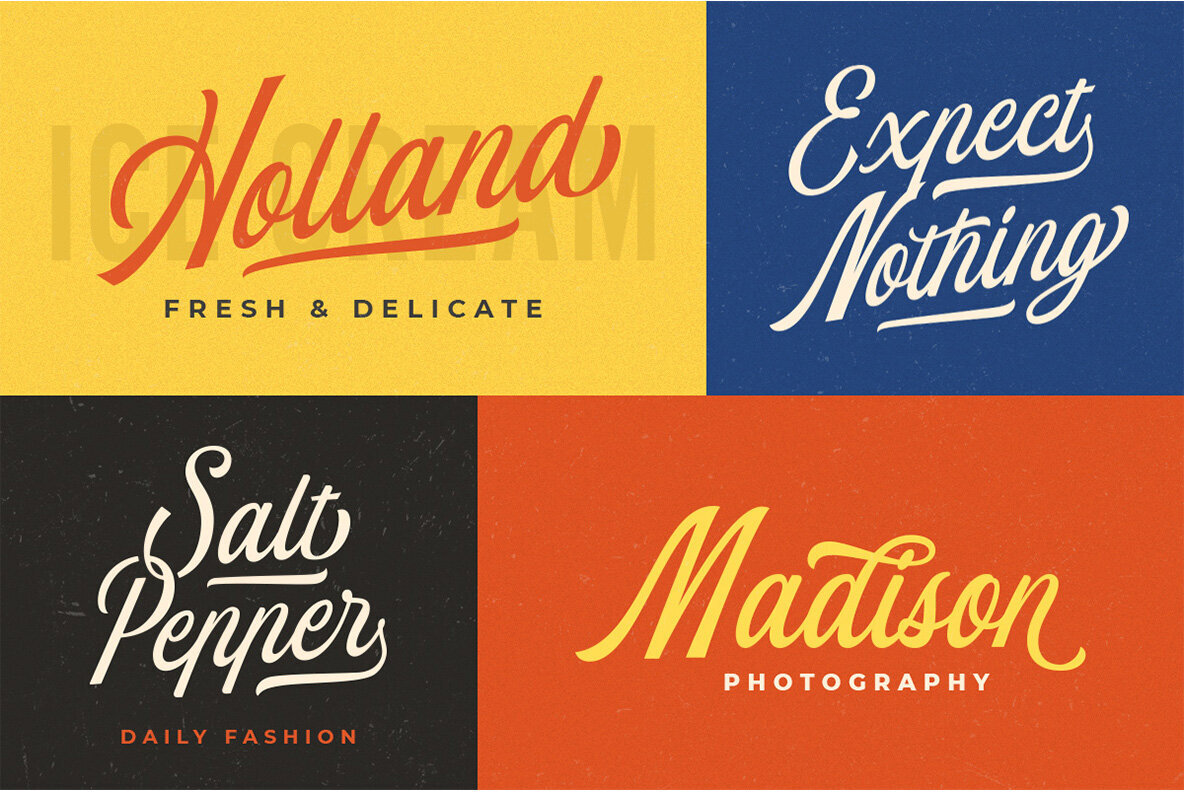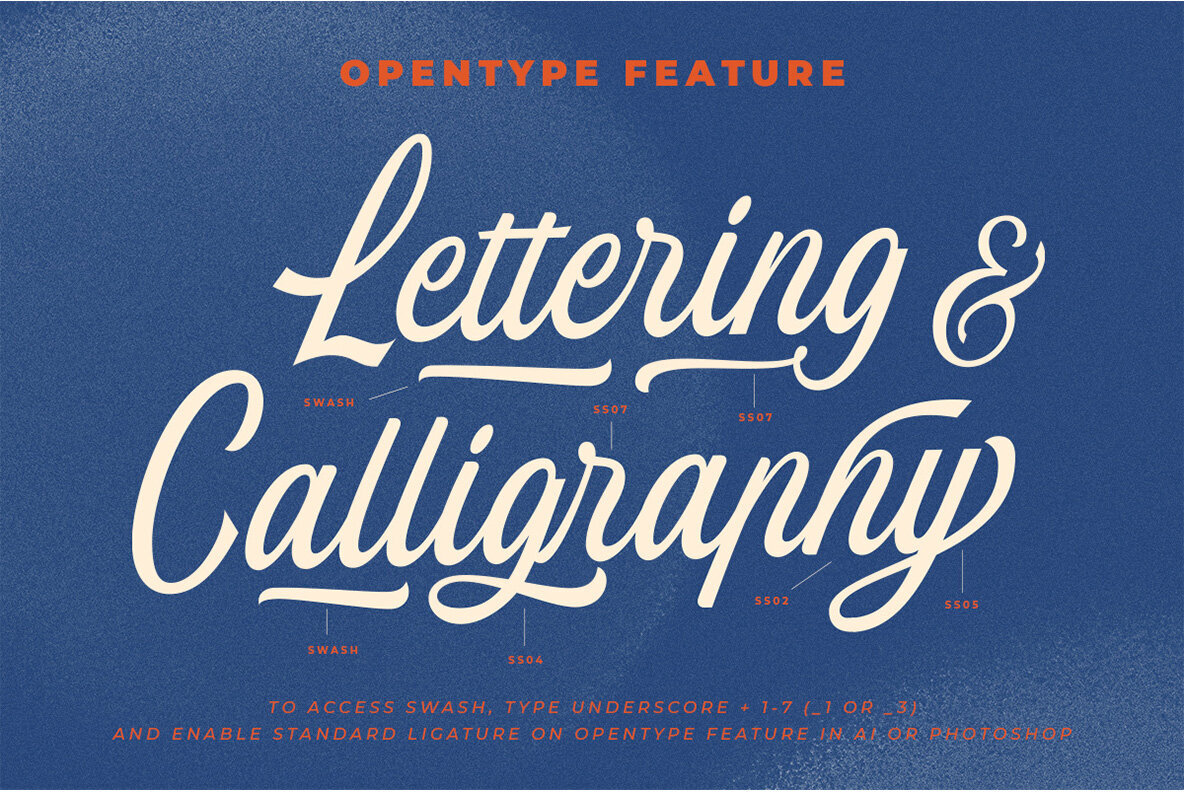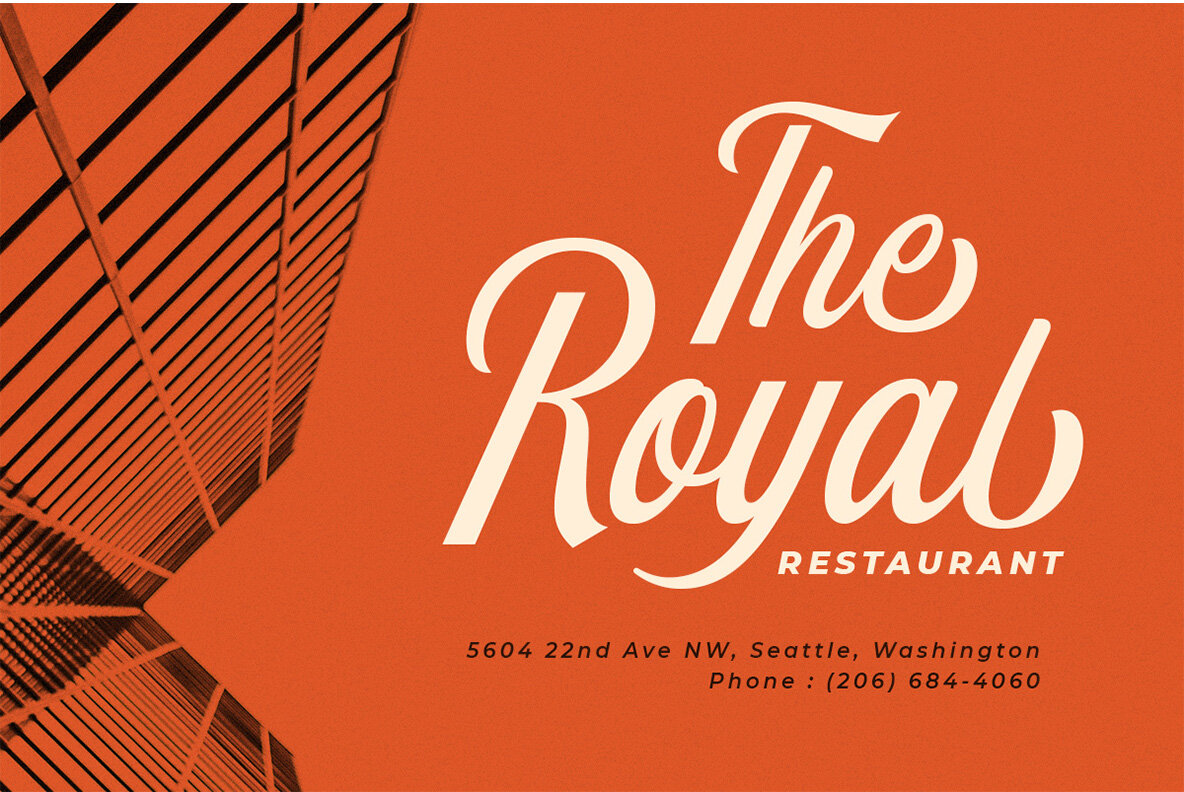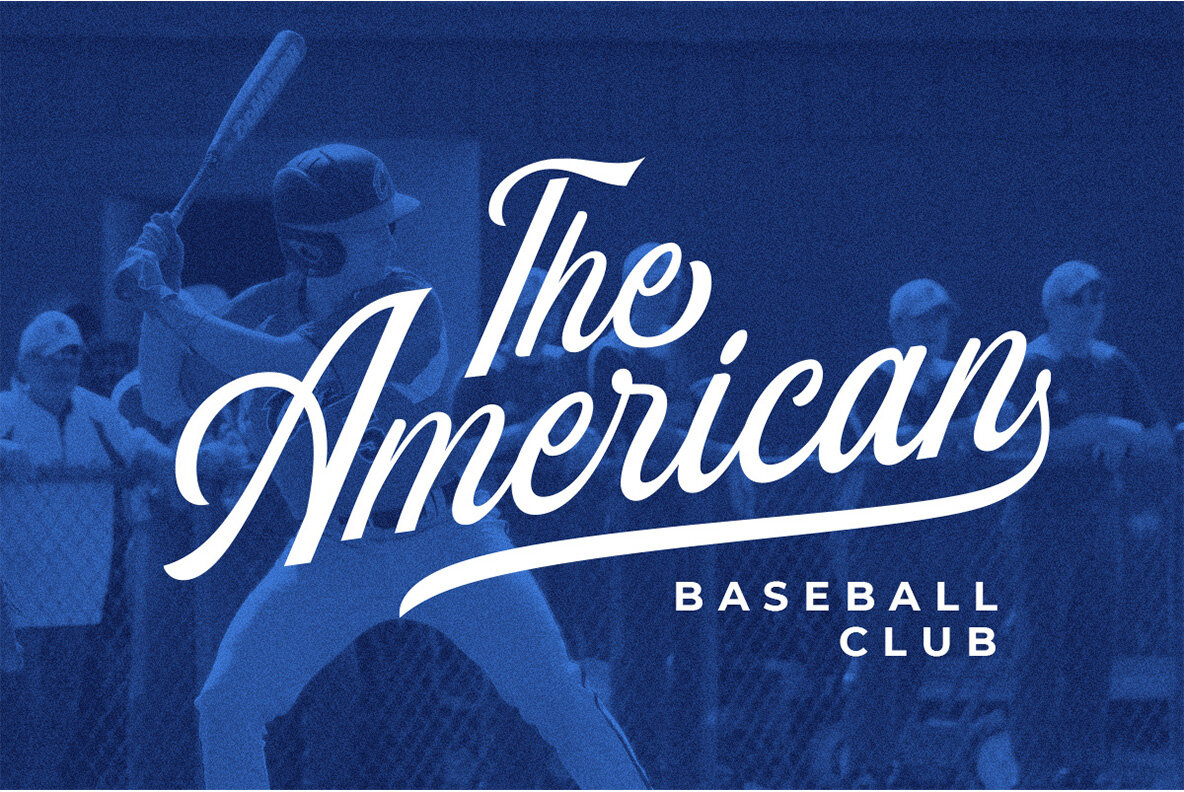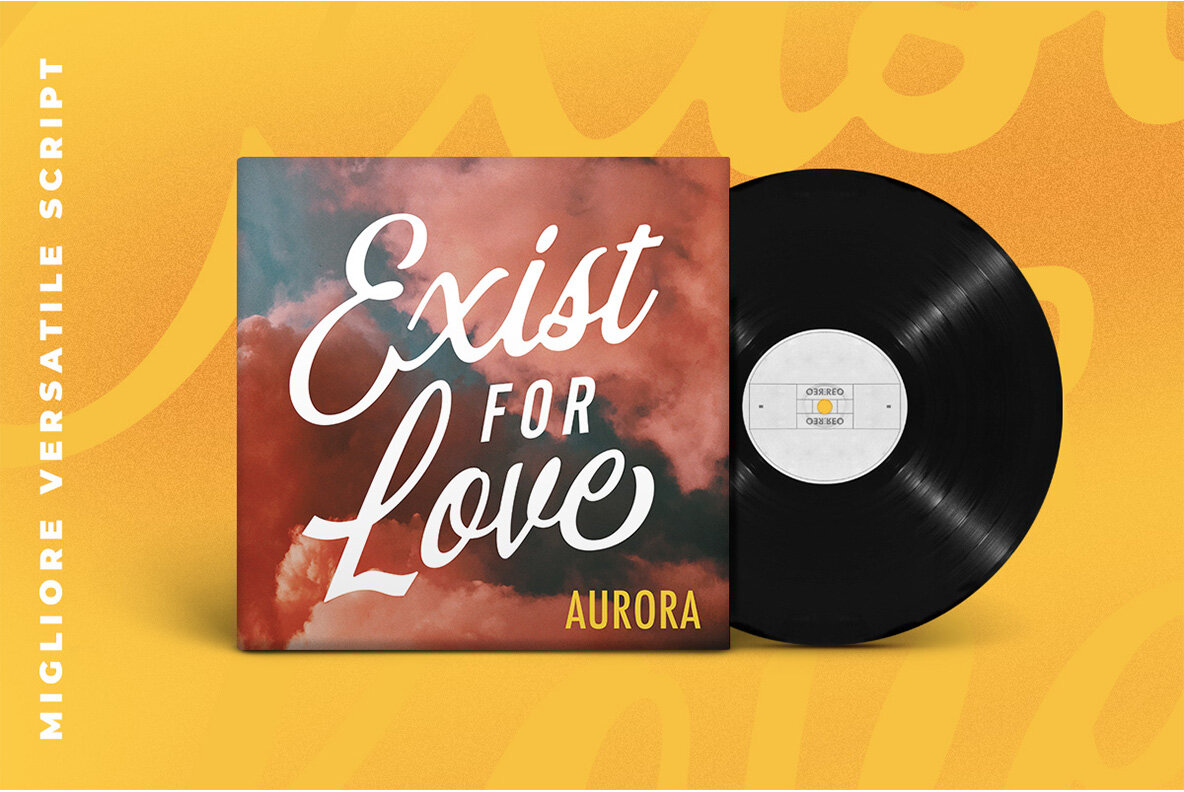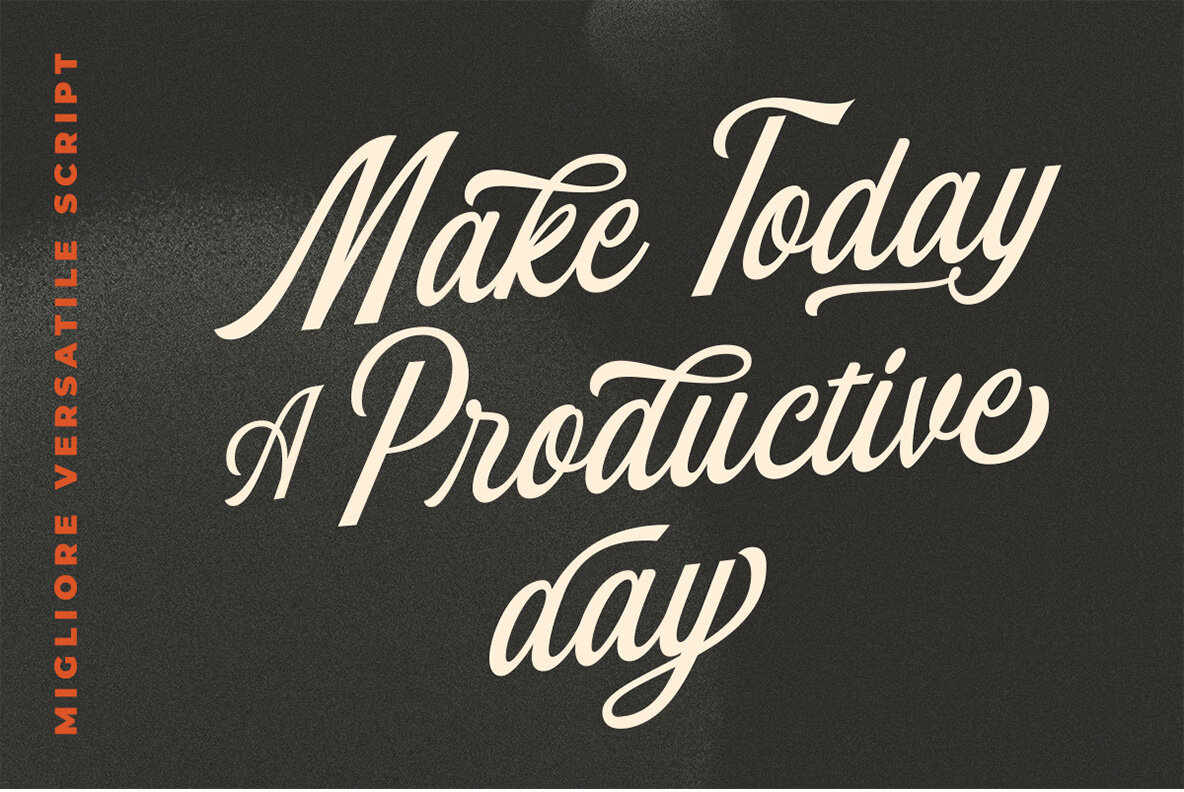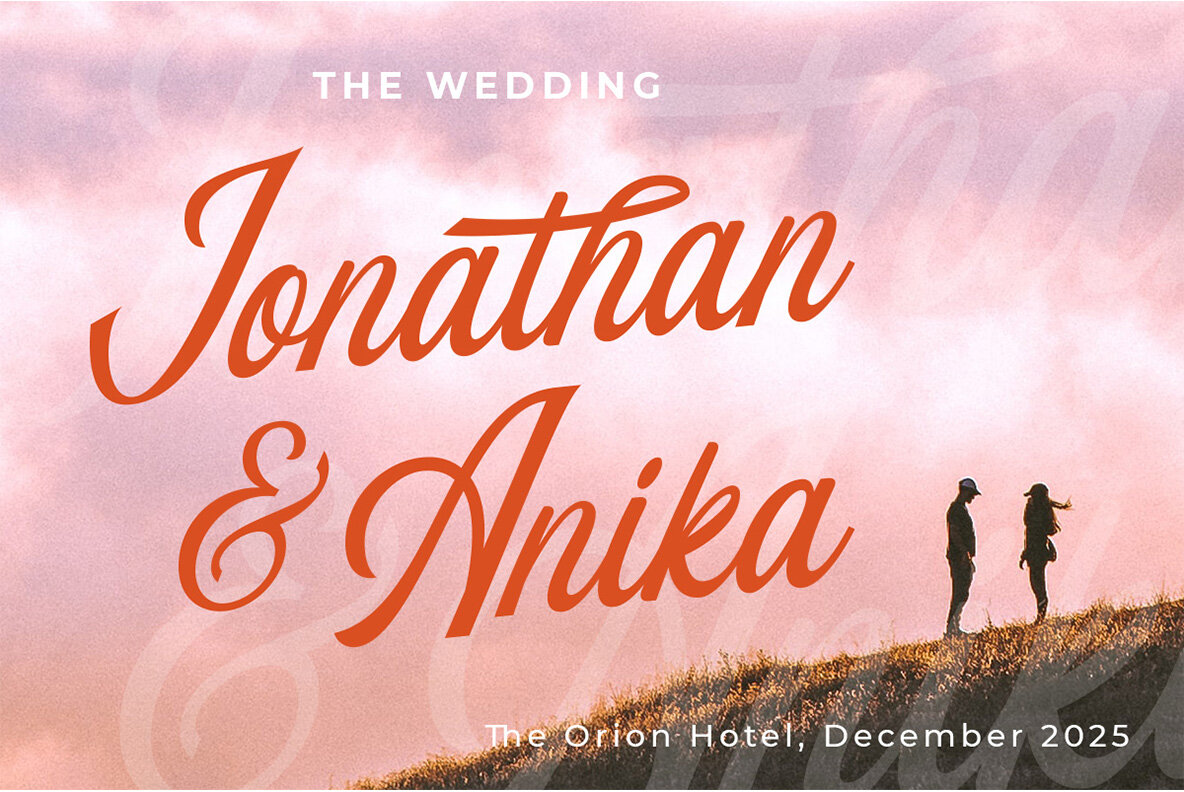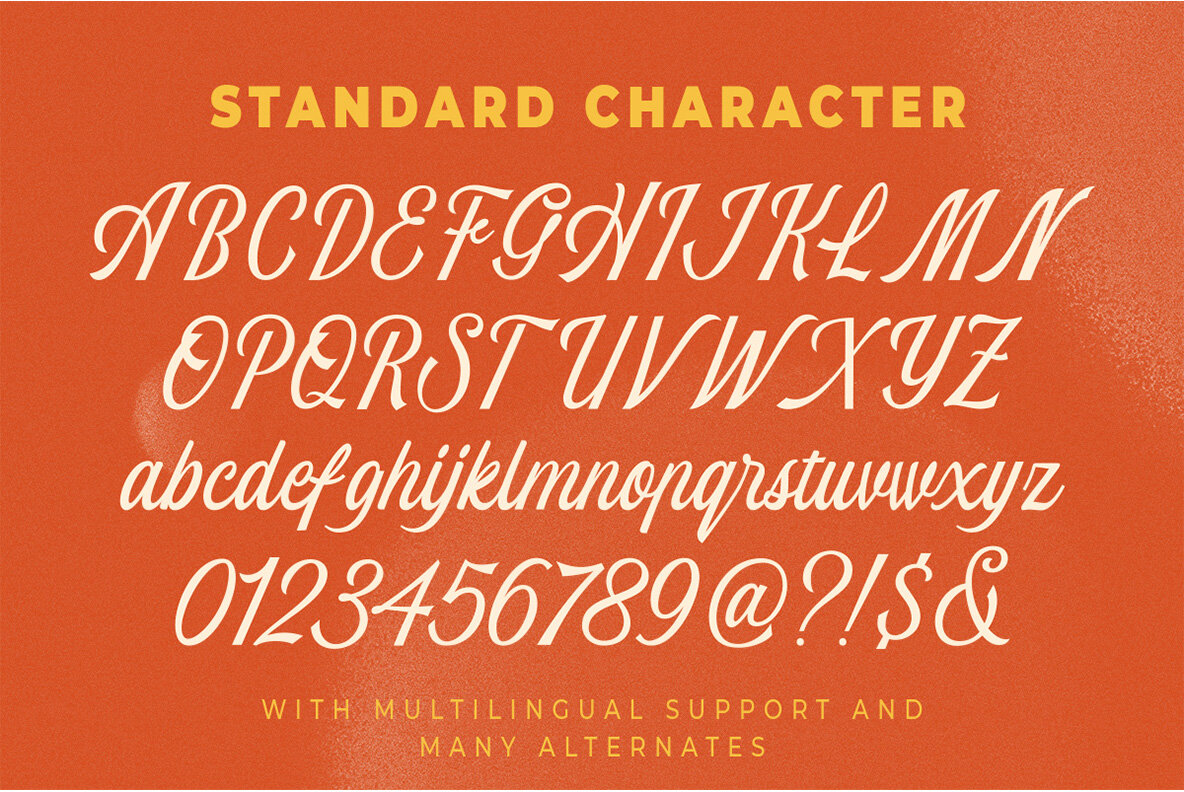
Migliore Font
Migliore Regular
The Migliore font by Letterhend Studio exudes an air of timeless elegance suitable for an array of design applications. Its classy script style is ideal for creating impactful logos and is equally adept at elevating formal documents like invitations, magazines, and wedding cards. Enhanced by its smooth curves, Migliore brings a touch of refinement to packaging, fashion branding, makeup lines, stationery, and more. For an optimal experience, use programs supporting OpenType features such as Adobe applications and Corel Draw to fully explore Migliore's diverse glyph variations. Gain insights and instructions at Migliore: A Sophisticated Script for Versatile Designs